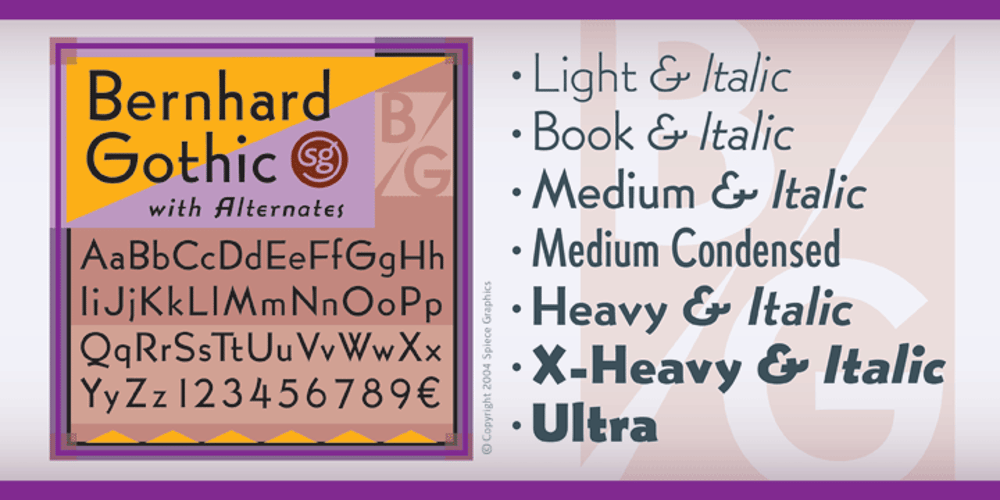
Bernhard Gothic SG
Bernhard Gothic SG font
Bernhard Gothic SG Font Family was designed by Lucian Bernhard, Jim Spiece and published by Spiece Graphics. Bernhard Gothic SG contains 12 styles and family package options. This design is one of the true gems to come out of the 1930s typeface era. Even though the face was originally designed to counter the invasion of European sans-serifs, it remains faithful to the principles found in its creator’s poster work. Lucian Bernhard’s lettering creation for American Type Founders is to this day a favorite among font connoisseurs worldwide. It has a unique personality. This deluxe version is packed with extras including the original oldstyle figures, alternates, and ligatures. A number of styles and alternate characters have been added to the family such as heavy italics, extra heavy italics, and capital figures. And an easier-to-identify “flagged” figure one and the new euro symbol are now located in each individual style. Bernhard Gothic is also available in the OpenType Std format. Lining and oldstyle figures, stylistic alternates, and additional discretionary ligatures are now combined in each style. These advanced features currently work in Adobe Creative Suite InDesign, Creative Suite Illustrator, and Quark XPress 7. Check for OpenType advanced feature support in other applications as it gradually becomes available with upgrades.